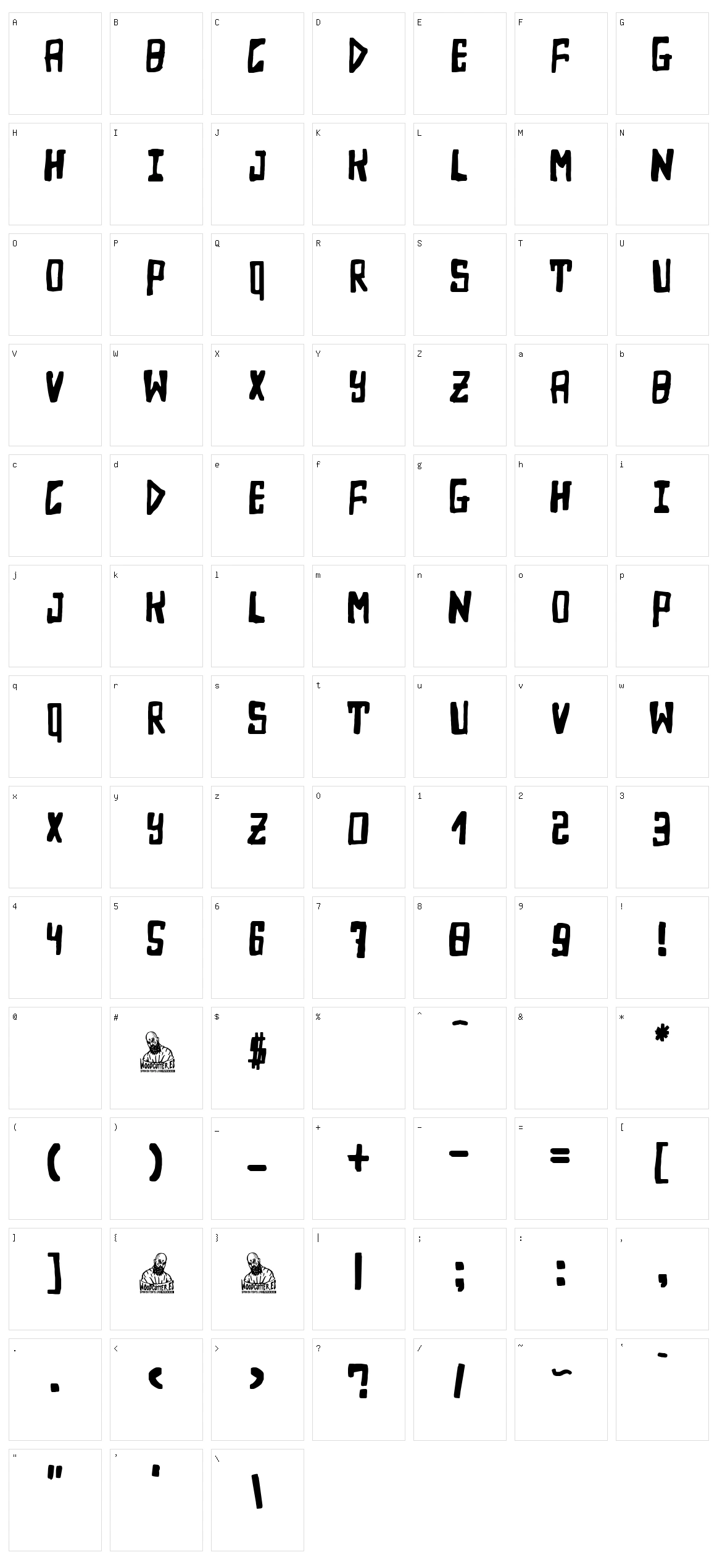
The free font Nightmare at the Supermarket is carefully designed by Woodcutter, showcasing a thoughtful balance of creativity and usability and falls under the Halloween font style. When you download the ZIP file, it contains only 50.24 KB of font files, making it lightweight and quick to download. Please review the license details below to understand permitted usage and distribution rights. If license information is not available, we recommend using this font for personal projects only or contacting the author directly for commercial usage permissions.